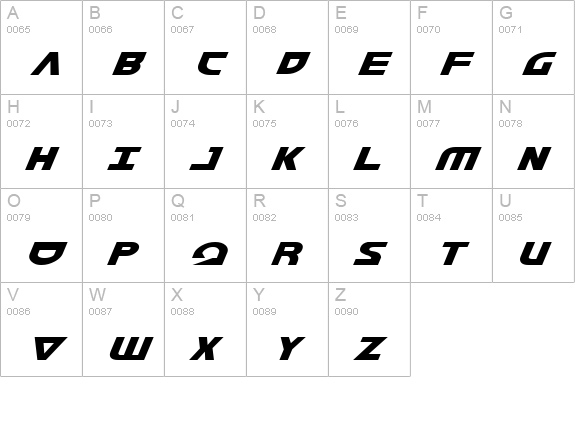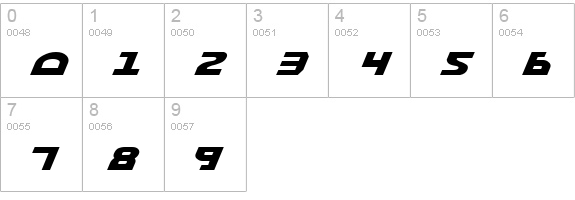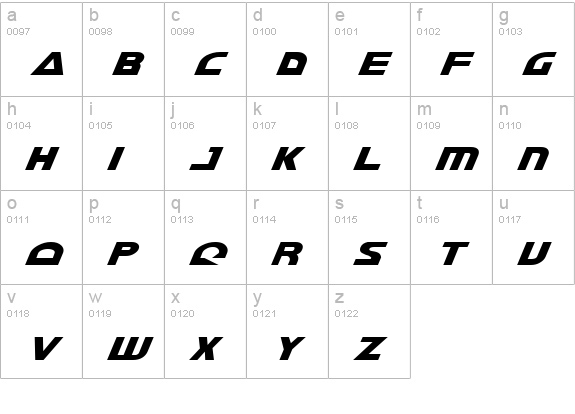
Morse NK Condensed Italic is a distinctive, condensed-width, italic variant in the Morse typeface family \xE2\x80\x94 well suited to design and typography projects.
Introducing Morse NK Condensed Italic font - a sleek and modern typeface designed for those looking to add a touch of sophistication to their designs. The elegant slant of the italicized characters gives off a sense of movement and fluidity, making it perfect for conveying a sense of style and creativity. This versatile font is ideal for a wide range of design projects, from branding to editorial design, thanks to its condensed form that allows for efficient use of space without compromising on readability. Its clean lines and subtle curves create a harmonious balance that is both eye-catching and easy to read. And the best part? Morse NK Condensed Italic font is available for free download at FontsMarket.com, making it accessible to designers of all levels looking to elevate their work with a touch of elegance. Don't miss out on this opportunity to enhance your designs with this sophisticated typeface today!